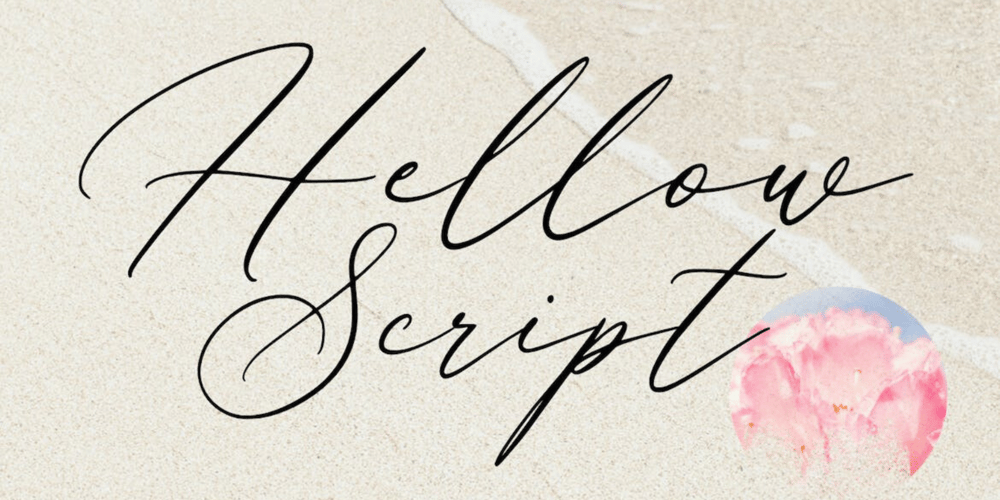
Hellow Script Font Family was designed by Irpan Maulana and published by Create Big Supply. Hellow Script contains 1 styles and family package options. Introducing Hellow Script, a delightful and versatile handwriting script font that brings a touch of elegance and femininity to your design projects. With its pretty and girly style, Hellow Script adds charming and effortless beauty to your typography.This font is incredibly user-friendly, allowing you to install it effortlessly and start creating stunning designs right away. From logos to labels, magazines to books, greeting cards to wedding invitations, packaging to fashion, and beyond, Hellow Script is the perfect choice for a wide range of creative applications.Hellow Script features a seamless combination of uppercase and lowercase letters, providing you with endless possibilities to create eye-catching and personalized designs. The font also includes numbers and punctuation, ensuring your text remains cohesive and well-designed.With its multilingual support, Hellow Script enables you to communicate your message effectively in various languages. The font incorporates ligatures and alternate characters, adding a touch of uniqueness and enhancing the natural flow of your typography.Hellow Script is designed with PUA (Private Use Area) Encoding, granting you easy access to special characters and alternate glyphs. This feature-rich font empowers you to create captivating designs that stand out and leave a lasting impression.